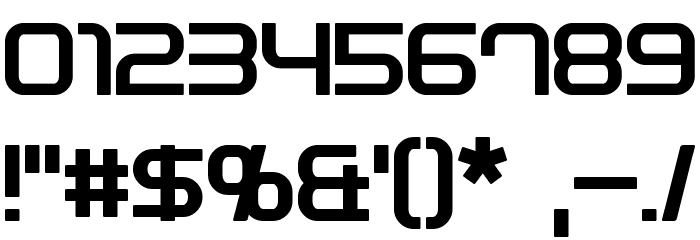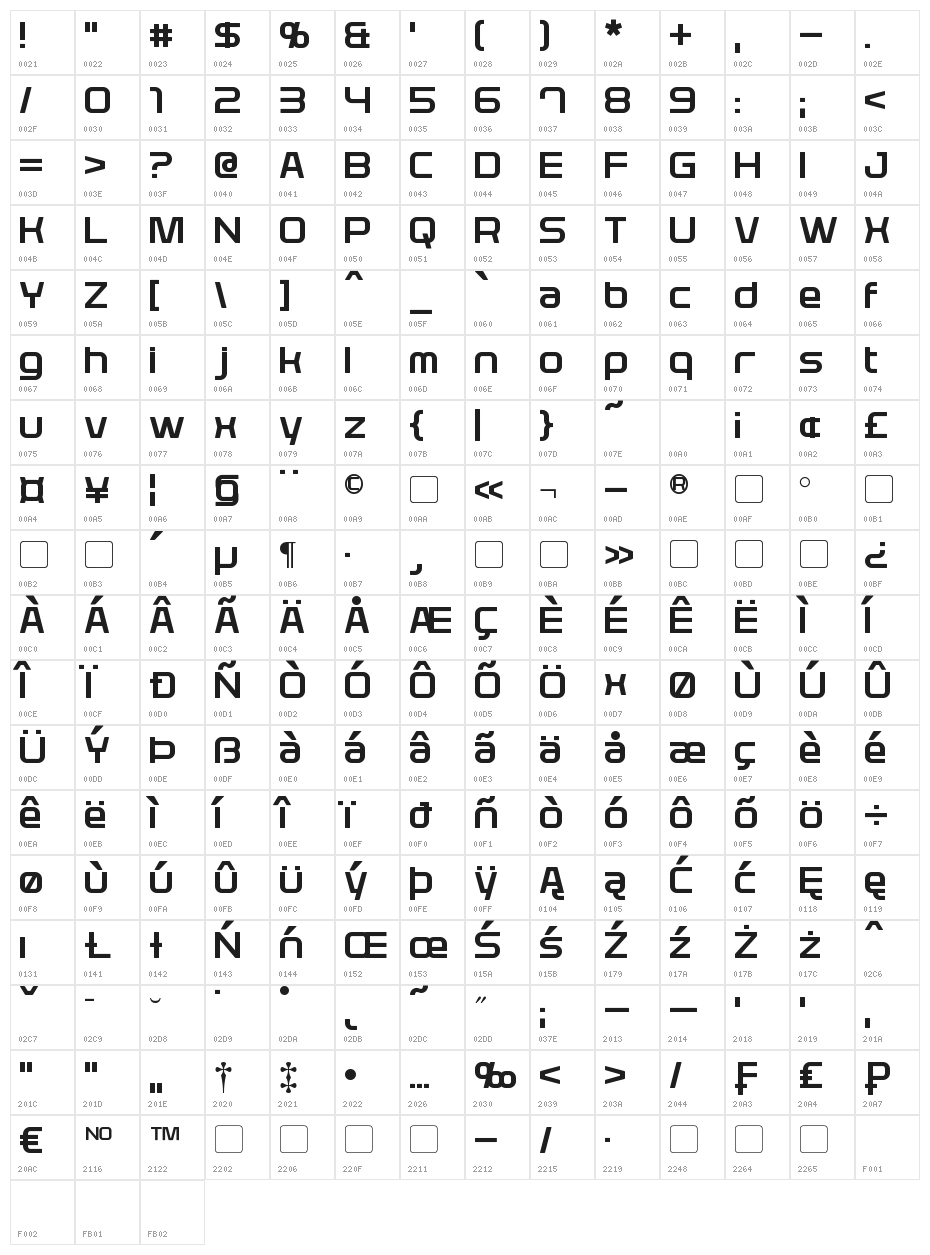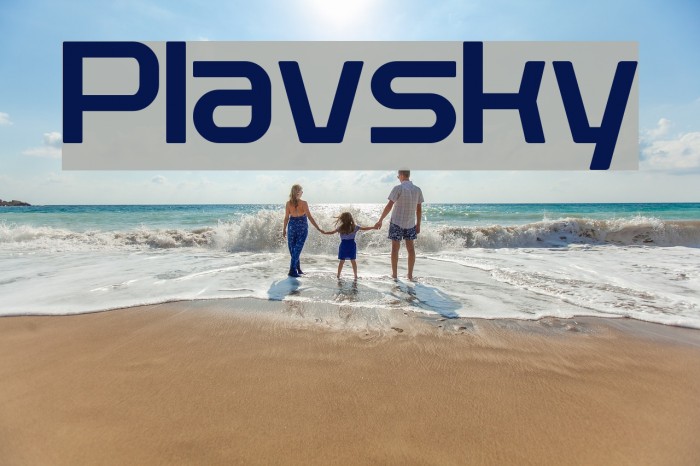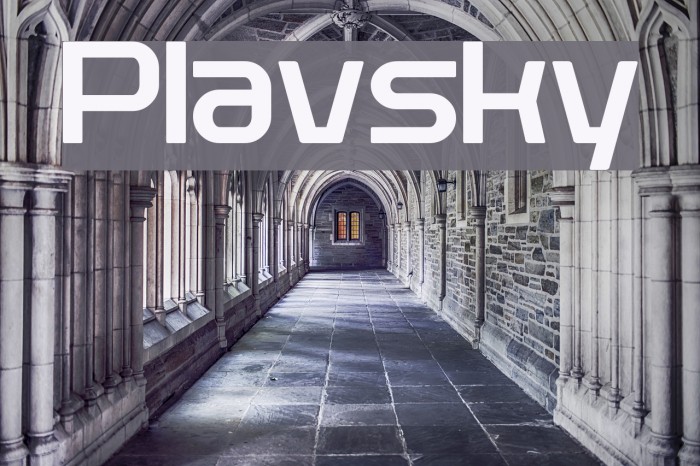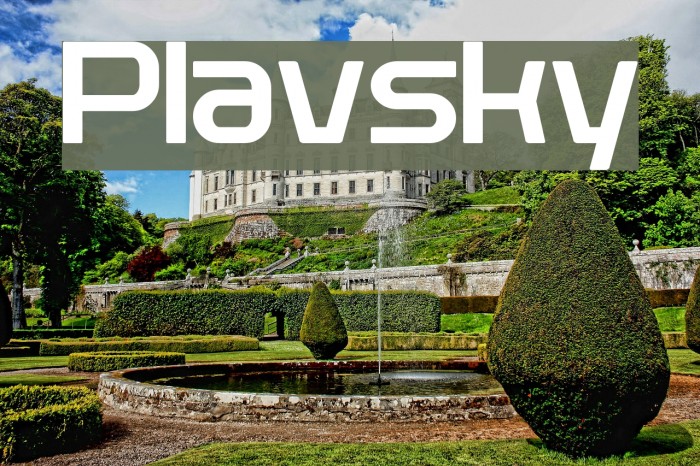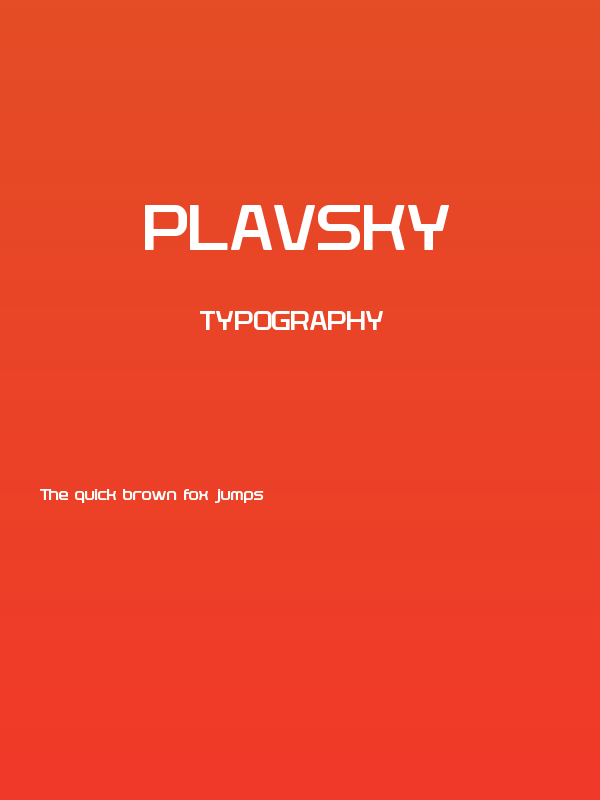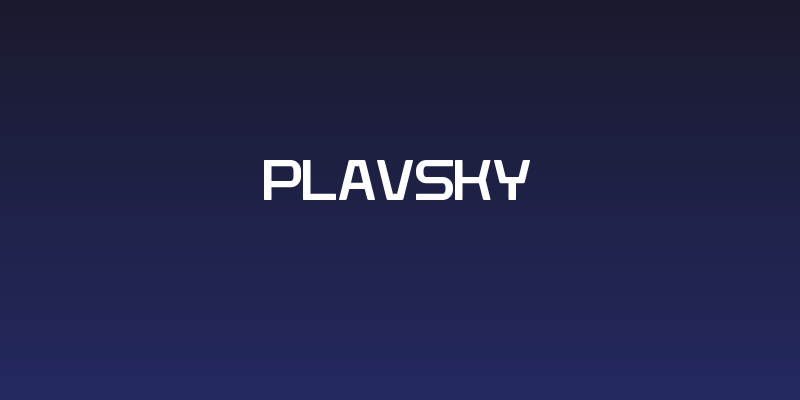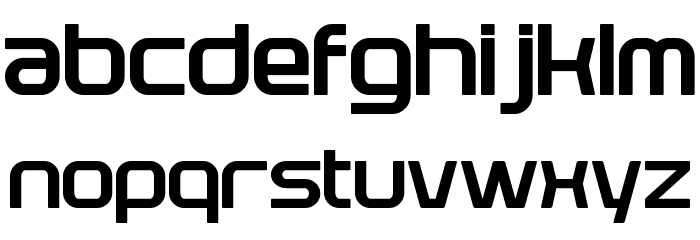
Plavsky Font
Plavsky Description
This font features a modern and geometric design with a strong, bold appearance. The characters are constructed with uniform stroke widths, giving it a clean and structured look. The uppercase and lowercase letters maintain a consistent style, with rounded edges that soften the overall appearance. The numerals and special characters are designed to complement the alphabet, maintaining the same geometric and modern aesthetic. This font is highly legible, making it suitable for various design applications.
| Proposed Projects | Ideal for branding, headlines, posters, and digital interfaces where a modern and bold statement is needed. |